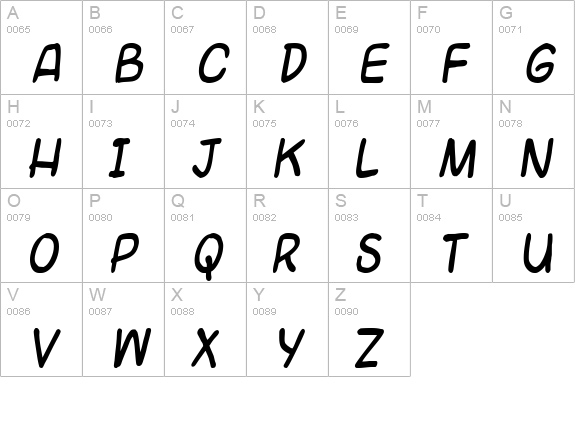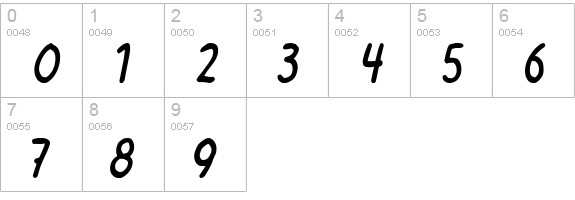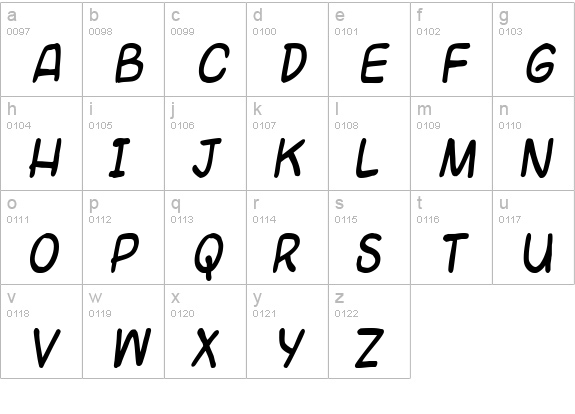
Universal Fruitcake font is a delightful and whimsical typeface that brings a touch of sweetness to any design project. With its playful curves and charming character, this font is perfect for adding a fun and lighthearted vibe to your creations. But what sets Universal Fruitcake font apart from the rest is that it is not only visually appealing, but it is also available for free! That's right, you can freely download this font at FontsMarket.com, making it accessible to everyone. Whether you're working on a greeting card, a children's book, a poster, or any other design venture, Universal Fruitcake font will add a delightful twist to your typography. Its unique letterforms and carefully crafted details make it a standout choice for any creative project. The versatility of Universal Fruitcake font is another reason why it's a must-have in any designer's toolkit. It can effortlessly adapt to various design styles, from playful and whimsical to elegant and sophisticated. Its ability to convey a range of emotions and messages makes it an excellent choice for any situation. So, if you're looking for a font that not only brings a touch of sweetness but is also freely available to download, look no further than Universal Fruitcake font. Head over to FontsMarket.com and get your hands on this delightful typeface today!